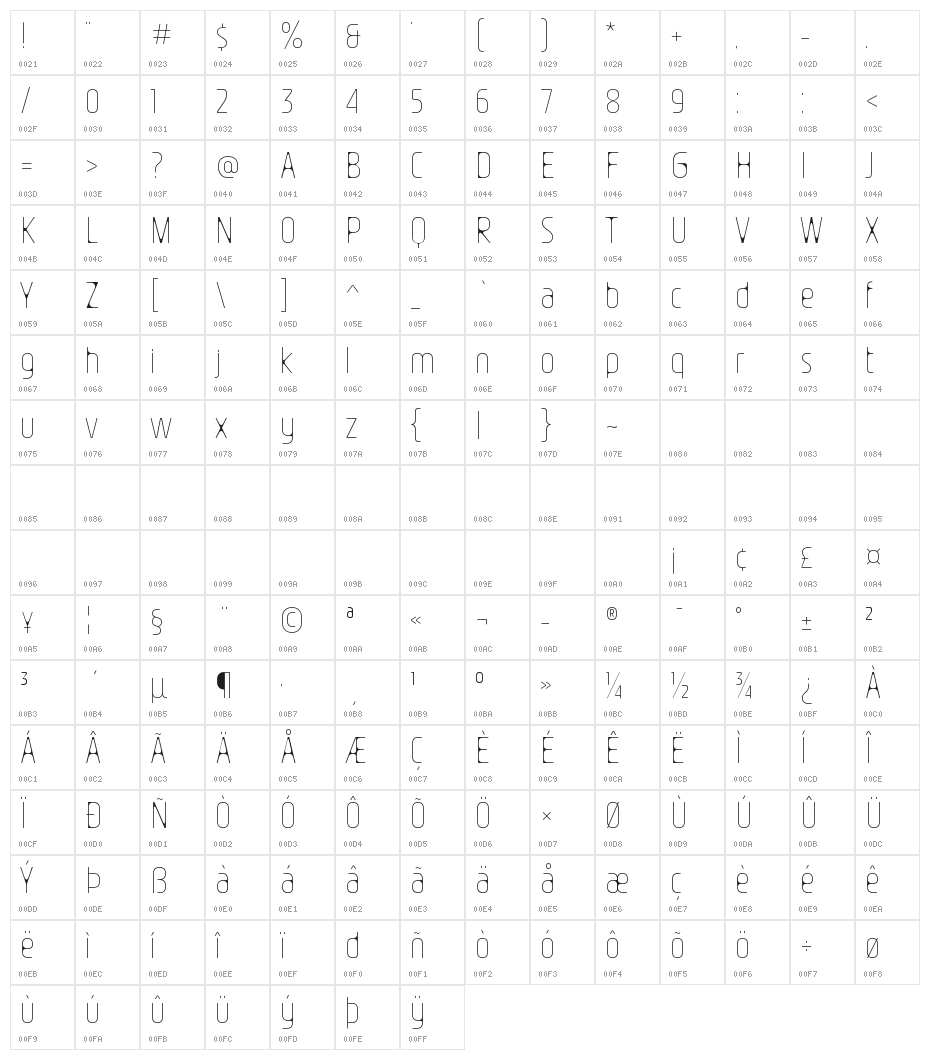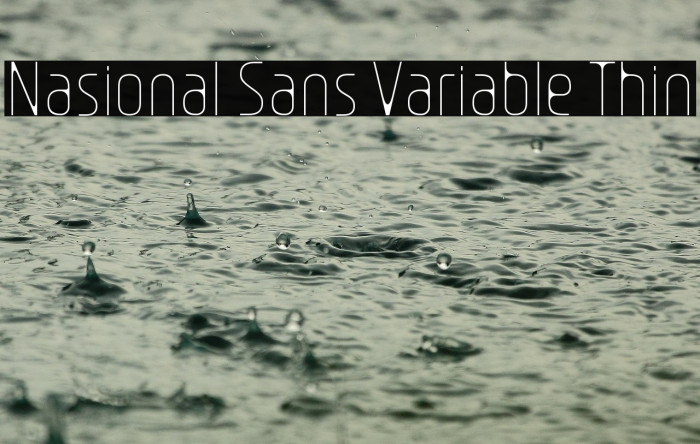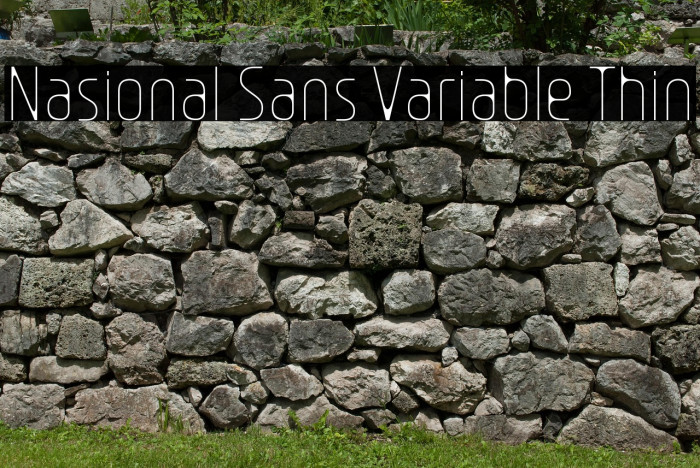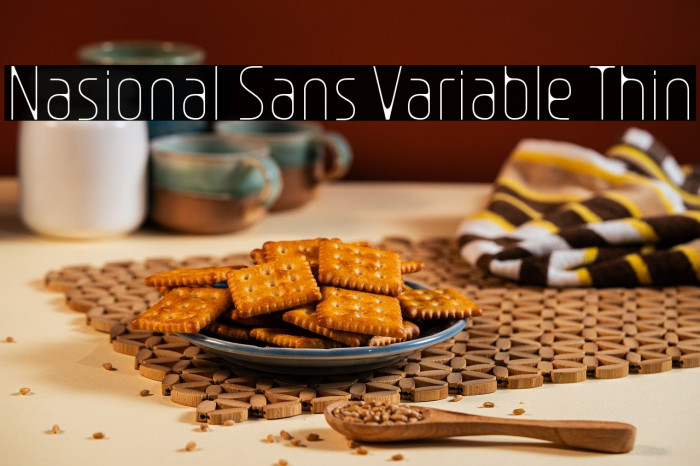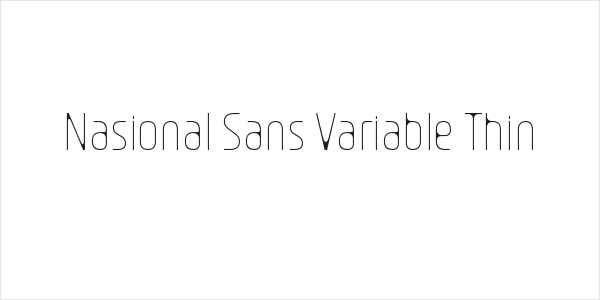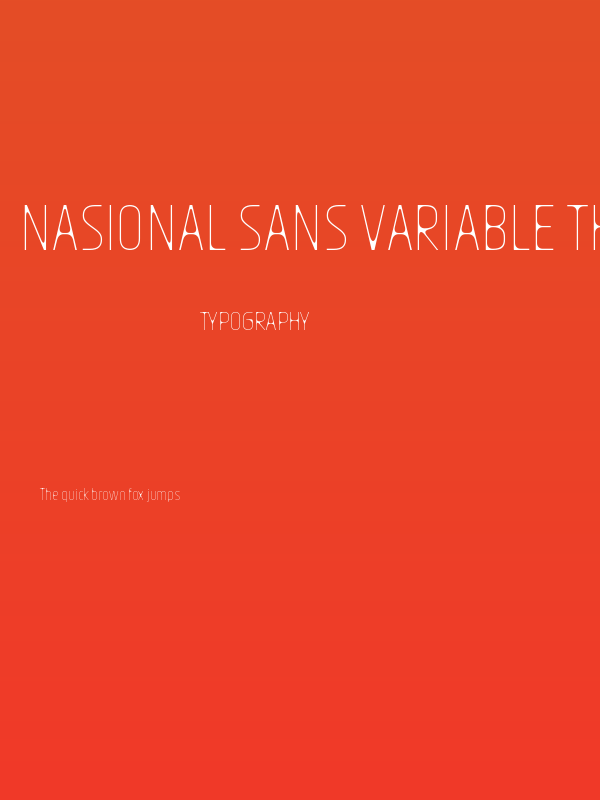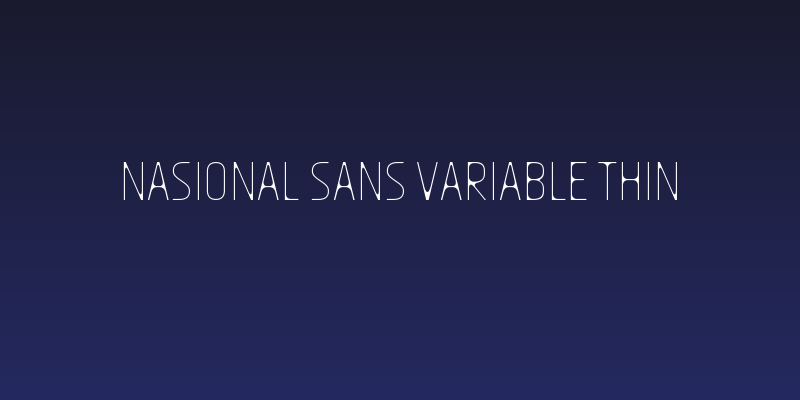
Nasional Sans Variable Thin Font
Nasional Sans Variable Thin Description
This font features a sleek and modern sans-serif design with thin, elongated characters that convey a sense of elegance and sophistication. The uniform stroke width and minimalistic approach make it ideal for contemporary design projects. The characters are slightly condensed, enhancing readability while maintaining a stylish appearance. The font includes a full set of uppercase and lowercase letters, numerals, and a variety of special characters, making it versatile for various applications. Its clean lines and subtle curves provide a harmonious balance, suitable for both digital and print media.
| Proposed Projects | Ideal for branding, editorial design, web design, and minimalist posters. |